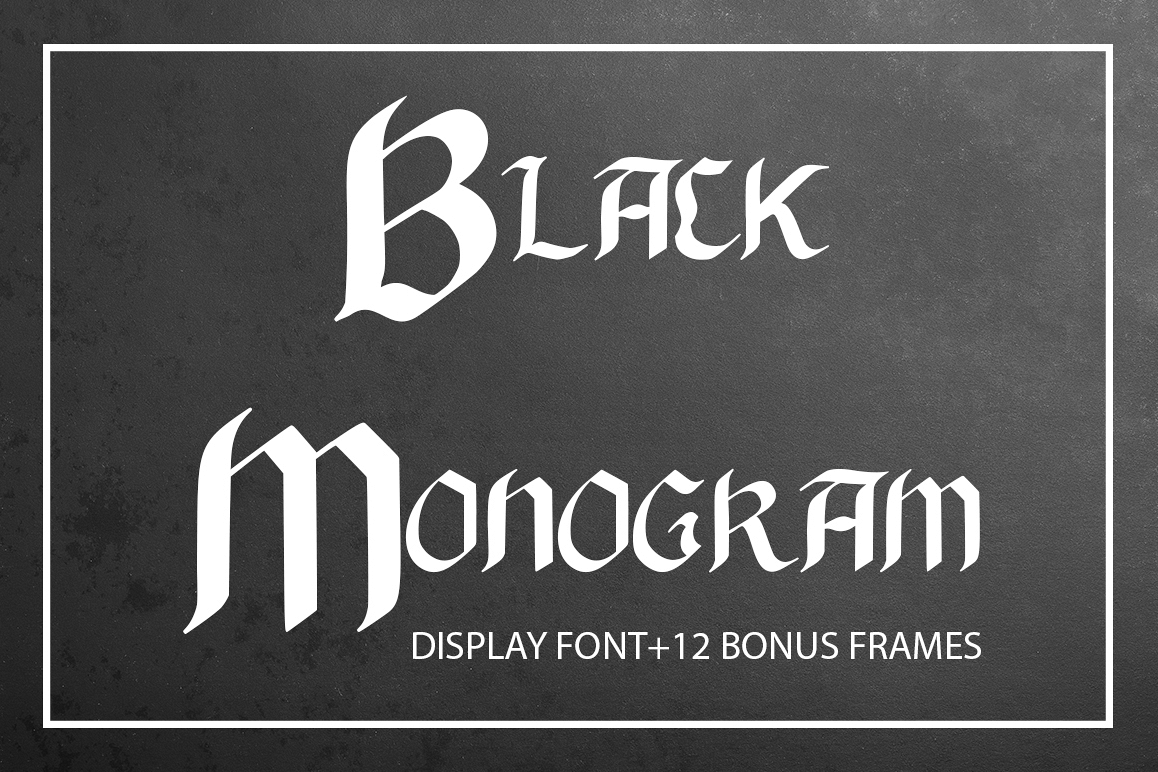
Black Monogram Creator
This is a  typefaces to create Two- or three-letter monograms with full basic latin set and middle ampersand.
Also you get set of 12 decorate borders in Ai and PNG. Easy solution to get simple XX mid-century sans monogram. It couldn't be simpler to use, just type your letters with the font and choose your favourite border to complete the monogram.